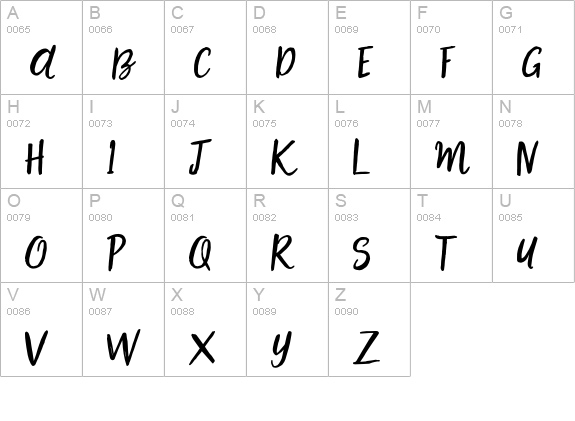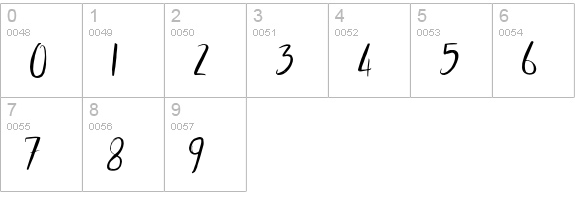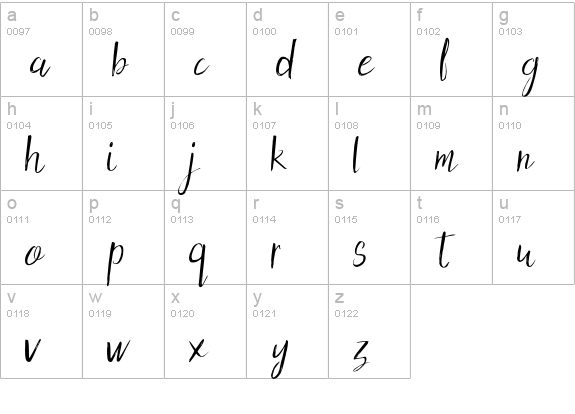
The Holy Mountain Mode font is a striking and modern typeface that exudes a sense of mystique and elegance. With its bold and intricate design, this font is perfect for adding a touch of sophistication to any project or design. The intricate details and unique shapes of the letters make Holy Mountain Mode stand out from the crowd and give it a truly distinctive look. Best of all, Holy Mountain Mode is available for free download at FontsMarket.com, making it easily accessible for anyone looking to add a touch of style to their work. Whether you're designing a website, creating a logo, or working on a print project, Holy Mountain Mode is sure to make a statement and leave a lasting impression. Download this stunning font today and elevate your designs to new heights with Holy Mountain Mode.